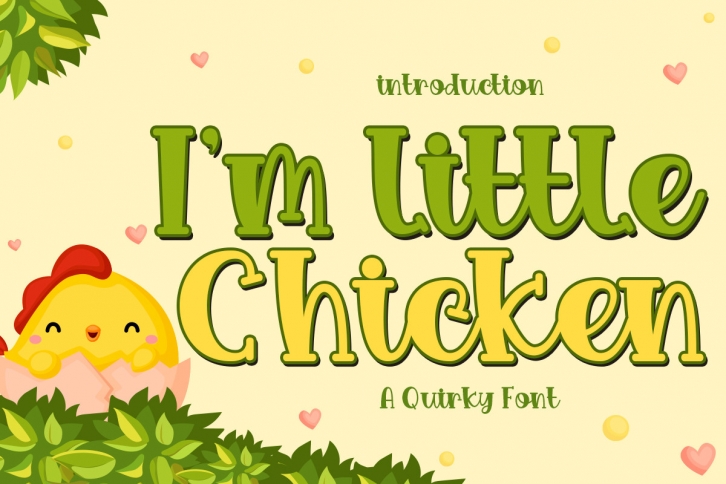
“I’m a little chicken” is a unique and cute serif font featuring quirky characters and a friendly and inviting look! You can use this font for many creative projects: use it for food product packaging, children’s storybooks, or add it to birthday and thank you cards!